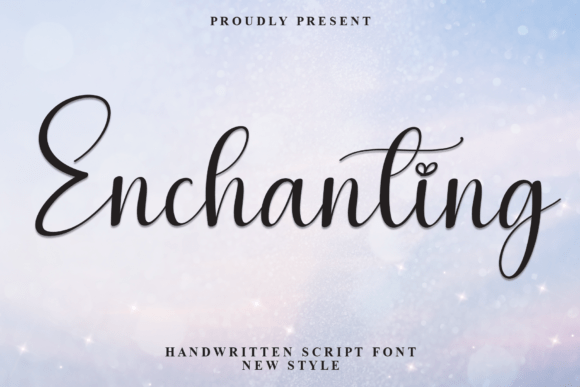
Where Magic Meets Design
As designers, we’ve all been there – staring at a blank canvas, desperate for the perfect font to bring our vision to life. And then, like a whispered secret, the perfect script font appears, weaving a spell of elegance and wonder. For me, that font is the Enchanting Font – a delicate script with magical swashes that transport me to a world of fairy tales and dreamy landscapes.
The Enchanting Font is more than just a font – it’s a tool for designers to add a touch of magic to their creations. With its soft handwritten flow and whimsical swashes, it’s perfect for branding that needs a sprinkle of elegance and wonder. Whether you’re designing a children’s book, a fantasy novel, or a wedding invitation, the Enchanting Font is sure to cast a spell of enchantment on your audience.
Key Features of Enchanting Font
- Font Family: Enchanting Font is available in 2 font families: Regular and Bold, with 12 styles each.
- Character Set: Enchanting Font includes a comprehensive set of characters, including uppercase and lowercase letters, numbers, punctuation marks, and special characters.
- Unique Characteristics: Enchanting Font features a unique blend of whimsical and elegant designs, with intricate details and flourishes, making it perfect for creative projects and designs that require a touch of magic.
Designer Review: Enchanting Font
Overall, I’d say the Enchanting Font is a lovely addition to any design project. ✨ It’s perfect for titles, headings, and even body text in certain contexts. The font’s whimsical feel and elegant curves evoke a sense of sophistication and magic.
Some of the font’s strengths include:
- ✨ Beautiful, flowing lines that add a touch of elegance to any design
- ✨ A wide range of weights and styles to choose from, making it suitable for various design needs
- ✨ The font’s uniqueness sets it apart from more common, generic fonts
- ⚠️ The font may be too ornate for certain designs, such as those requiring a clean and minimalist aesthetic
- ⚠️ Some characters, particularly in the script styles, may be difficult to read in smaller sizes or at a distance
- ⚠️ The font may not be suitable for designs that require a bold, modern look
Overall, I think the Enchanting Font is a great choice for designers looking to add a touch of elegance and whimsy to their projects. While it may not be suitable for every design need, it’s definitely worth considering for the right project.
For optimal results, use Enchanting Font for headings and titles.
It’s particularly effective for wedding invitations, event promotions, and luxury branding.
Remember to pair it with a clear and readable font for body text.